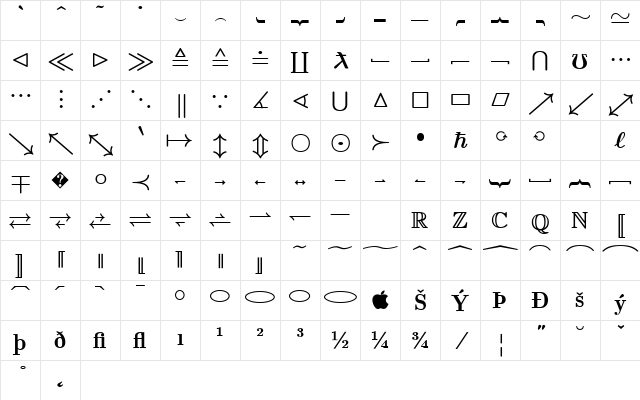
Complete Euclid Extra Bold glyph index. Displaying only characters natively supported by Euclid Extra Bold font.
Euclid Extra is a composed and adaptable typeface that performs quietly and consistently across a wide range of design contexts. Its bold stroke weight gives it real presence on the page.